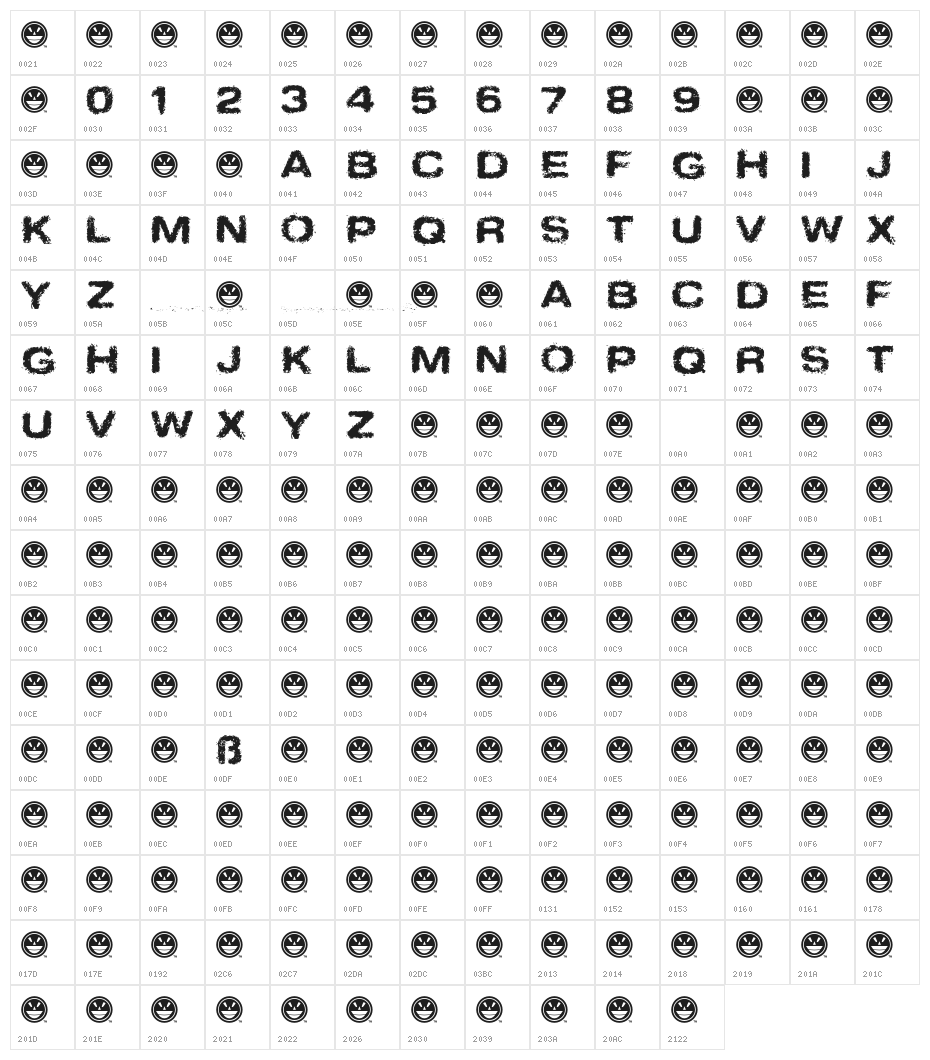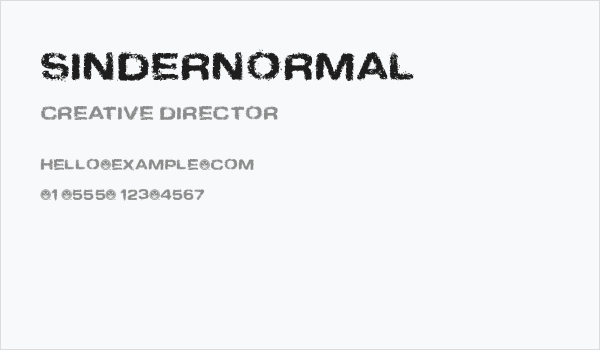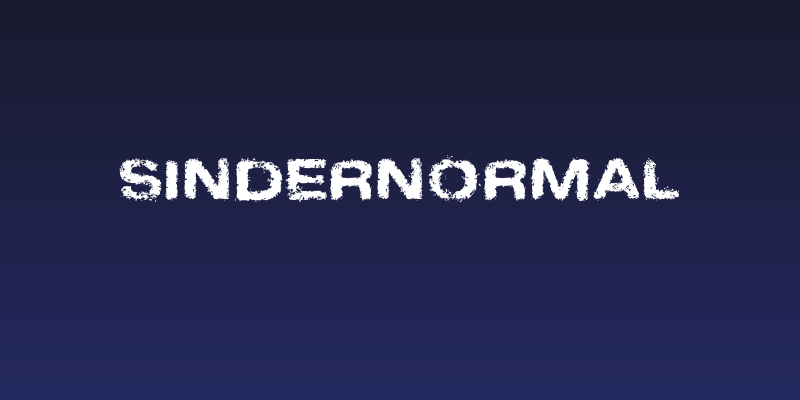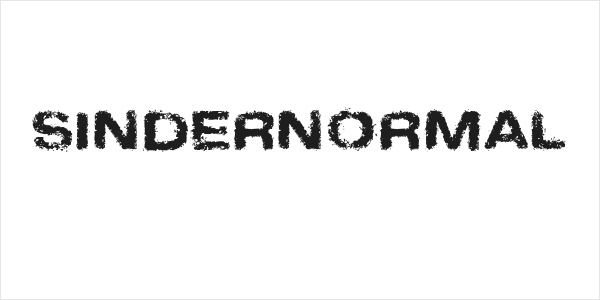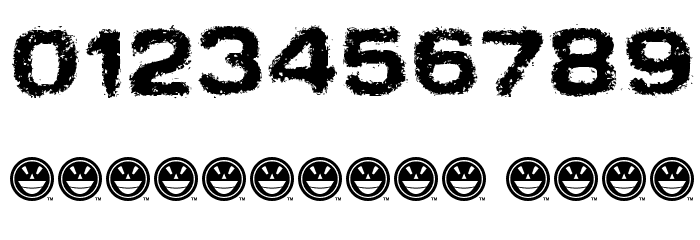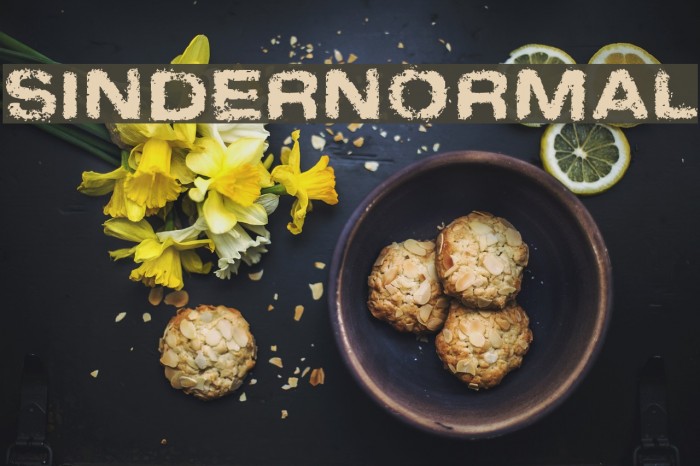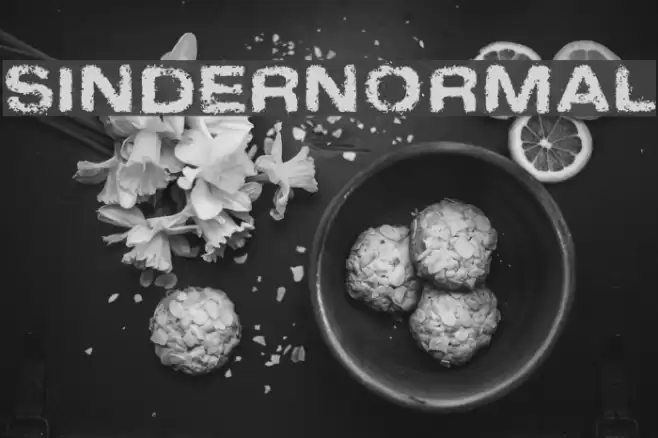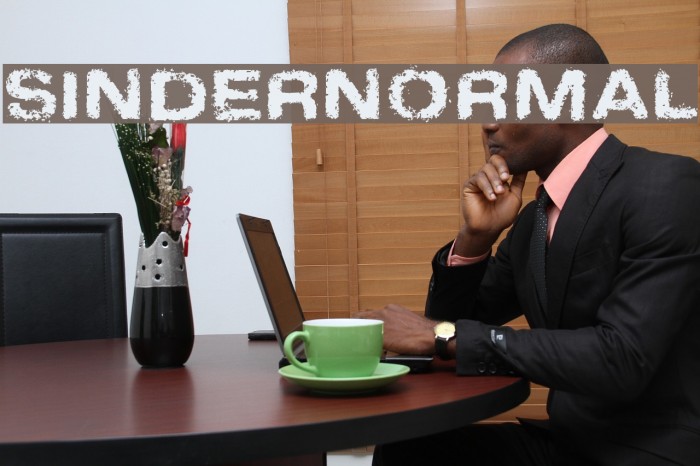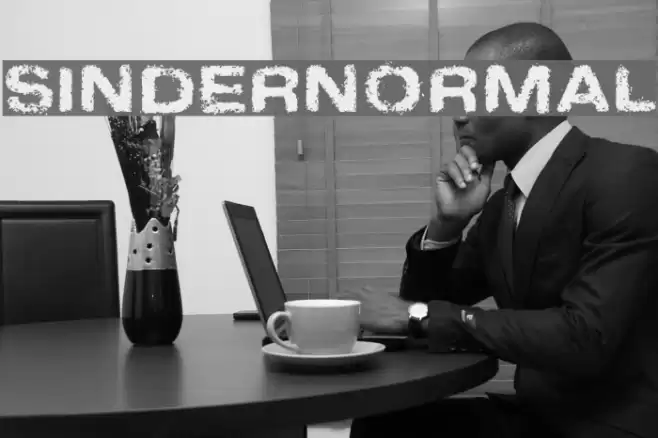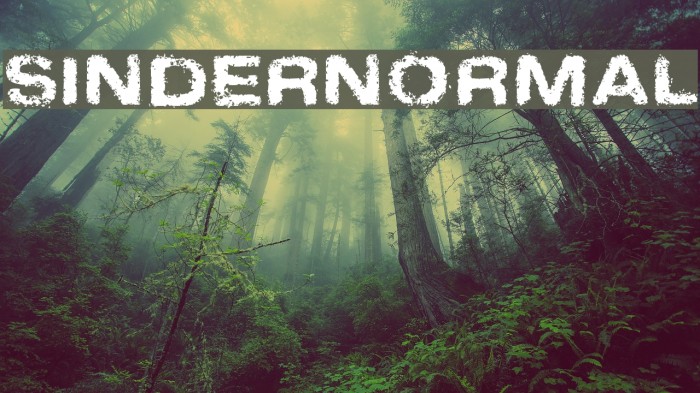
SinderNormal Font
SinderNormal Description
This font features a bold and distressed style, with a textured appearance that gives it a rugged and edgy look. The characters are uppercase and numerals, each with a rough, grunge-like texture that suggests a worn or weathered effect. The font maintains a consistent weight throughout, with a bold presence that makes it stand out. The spacing between characters is relatively tight, enhancing its compact and impactful design. This font is ideal for projects that require a strong, eye-catching aesthetic with a touch of rebellion or urban flair.